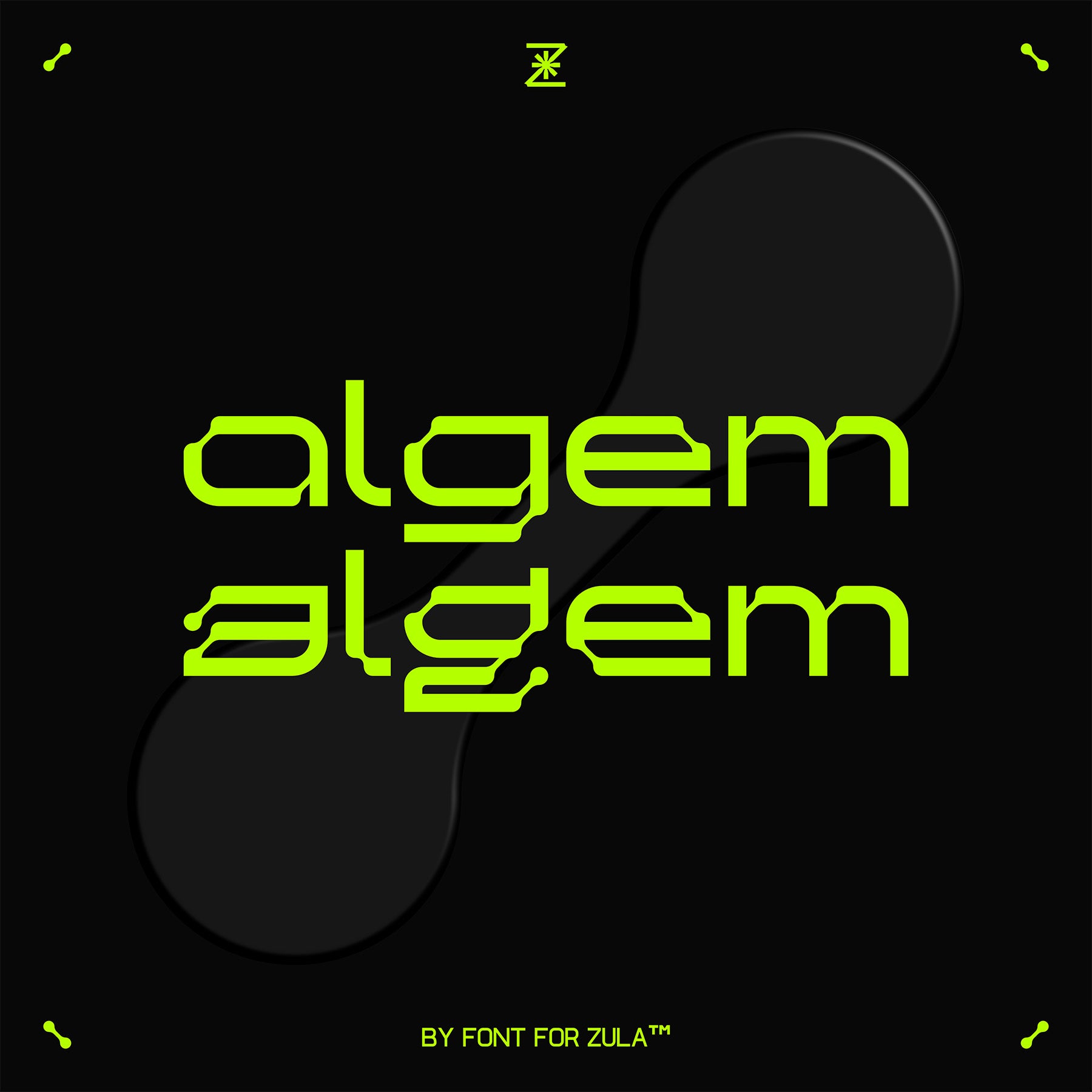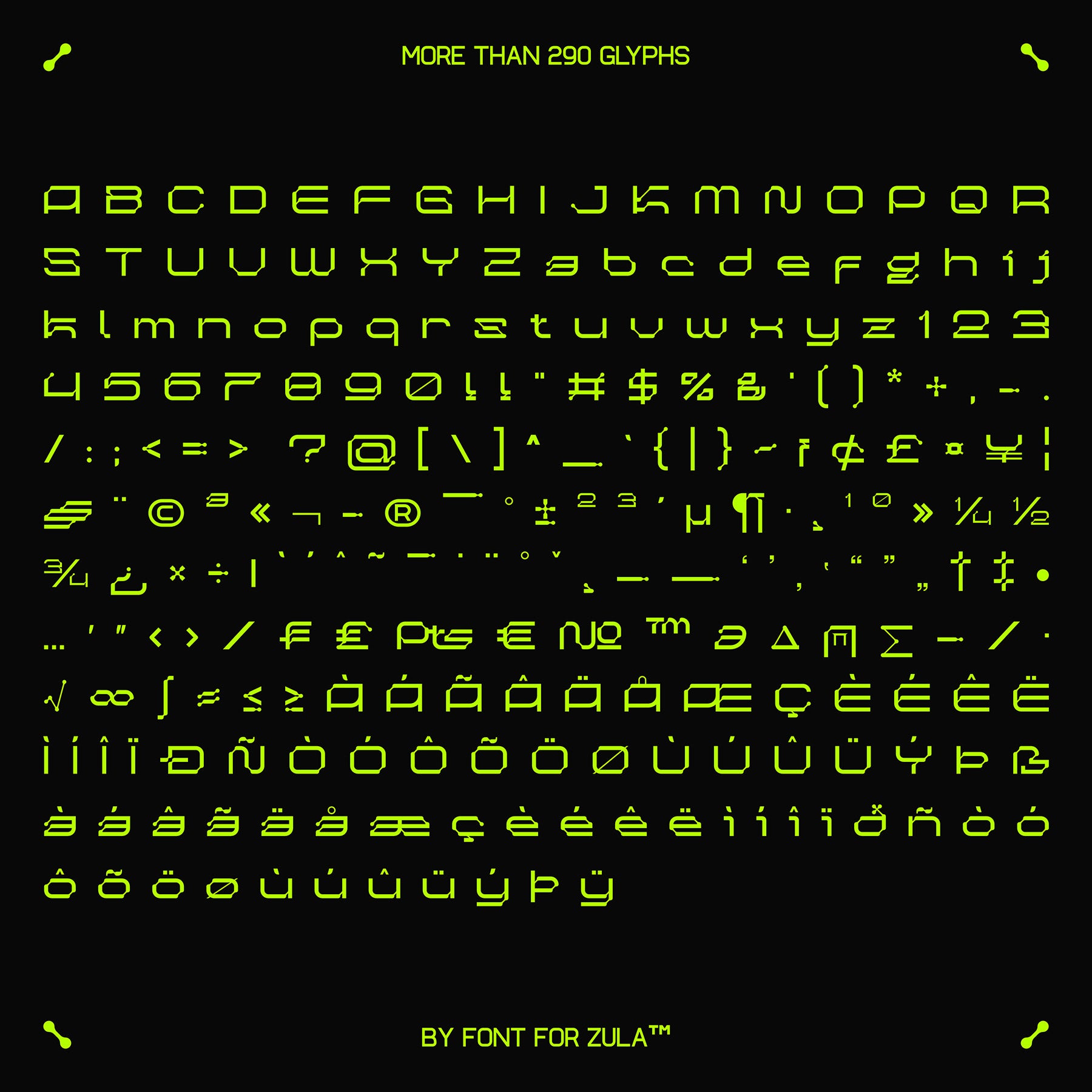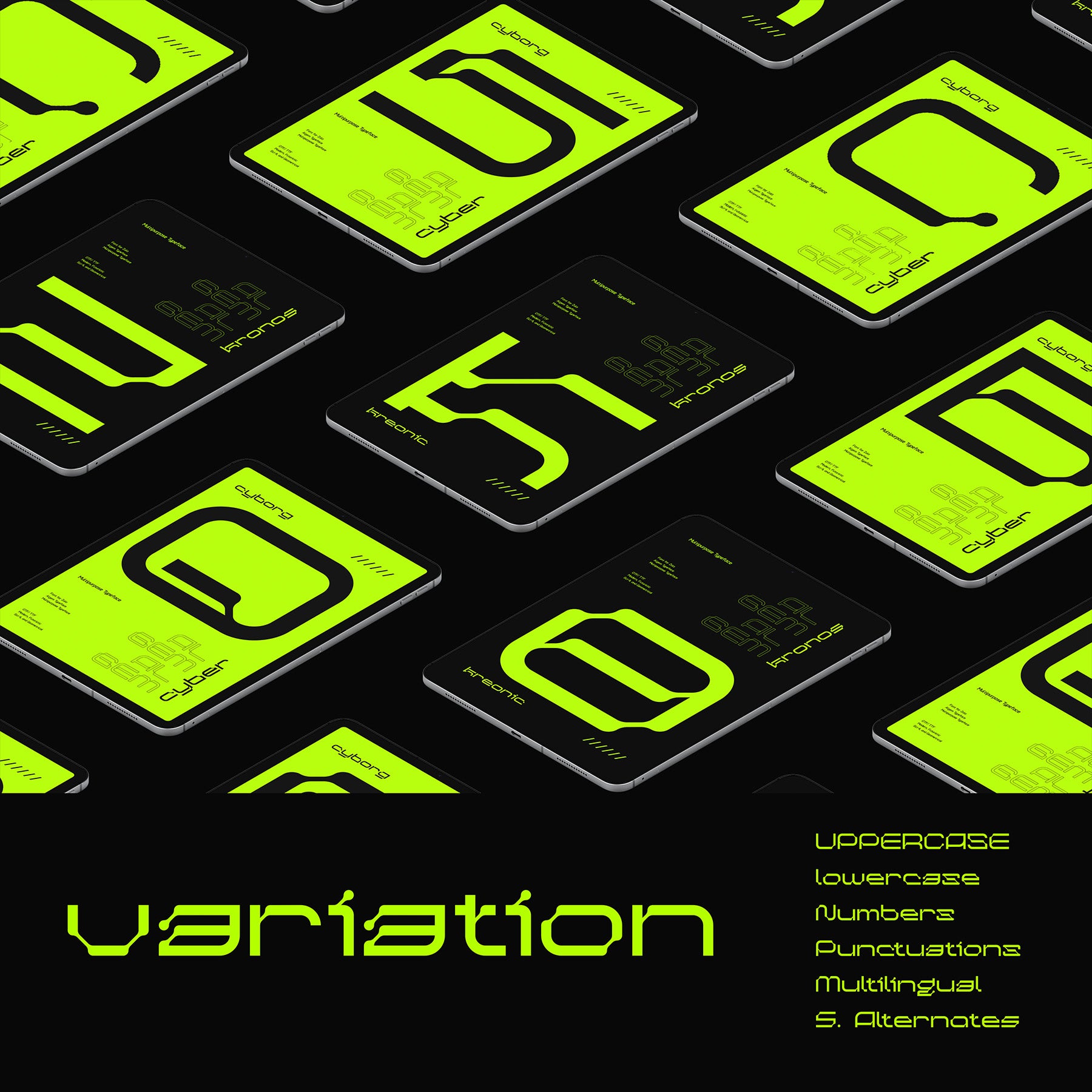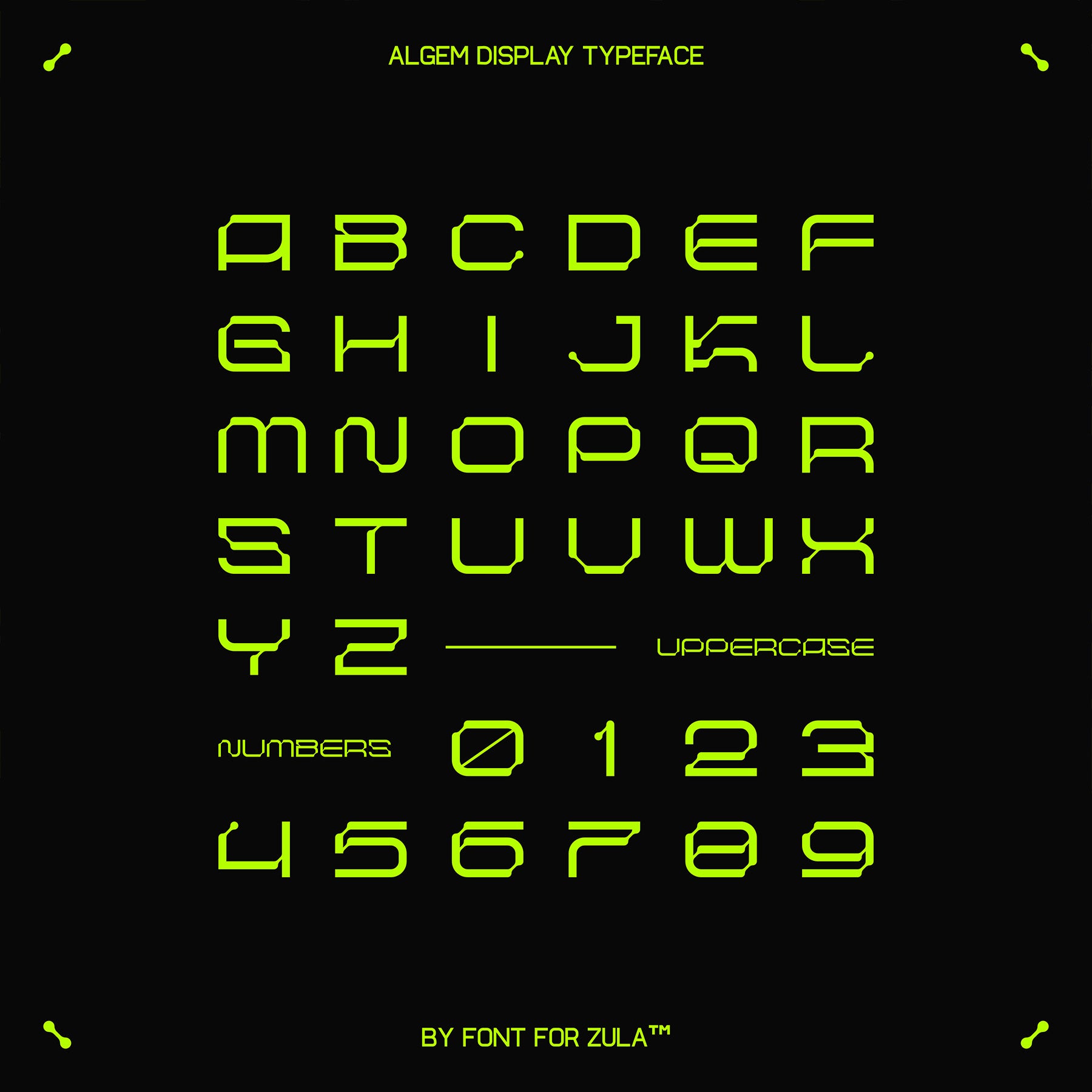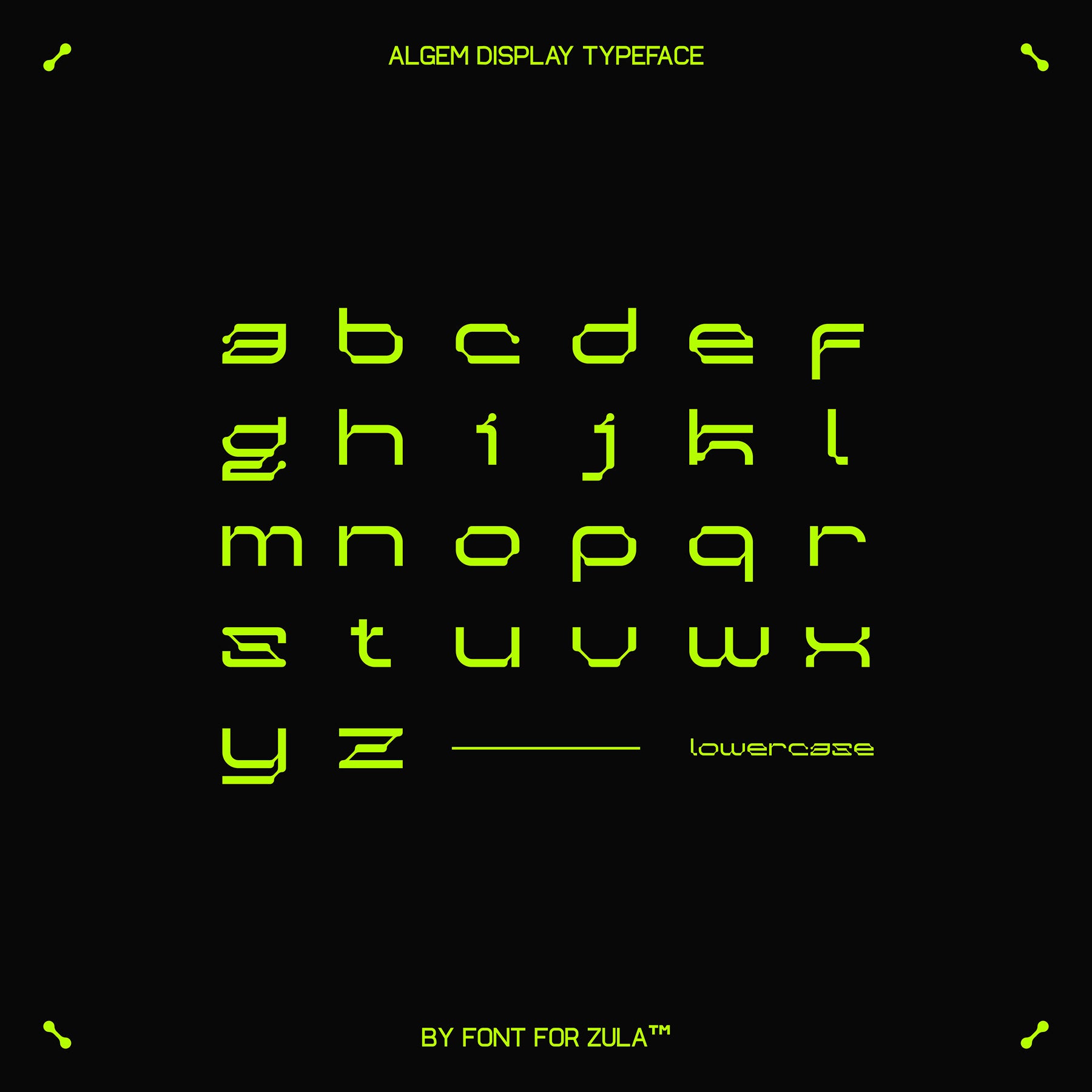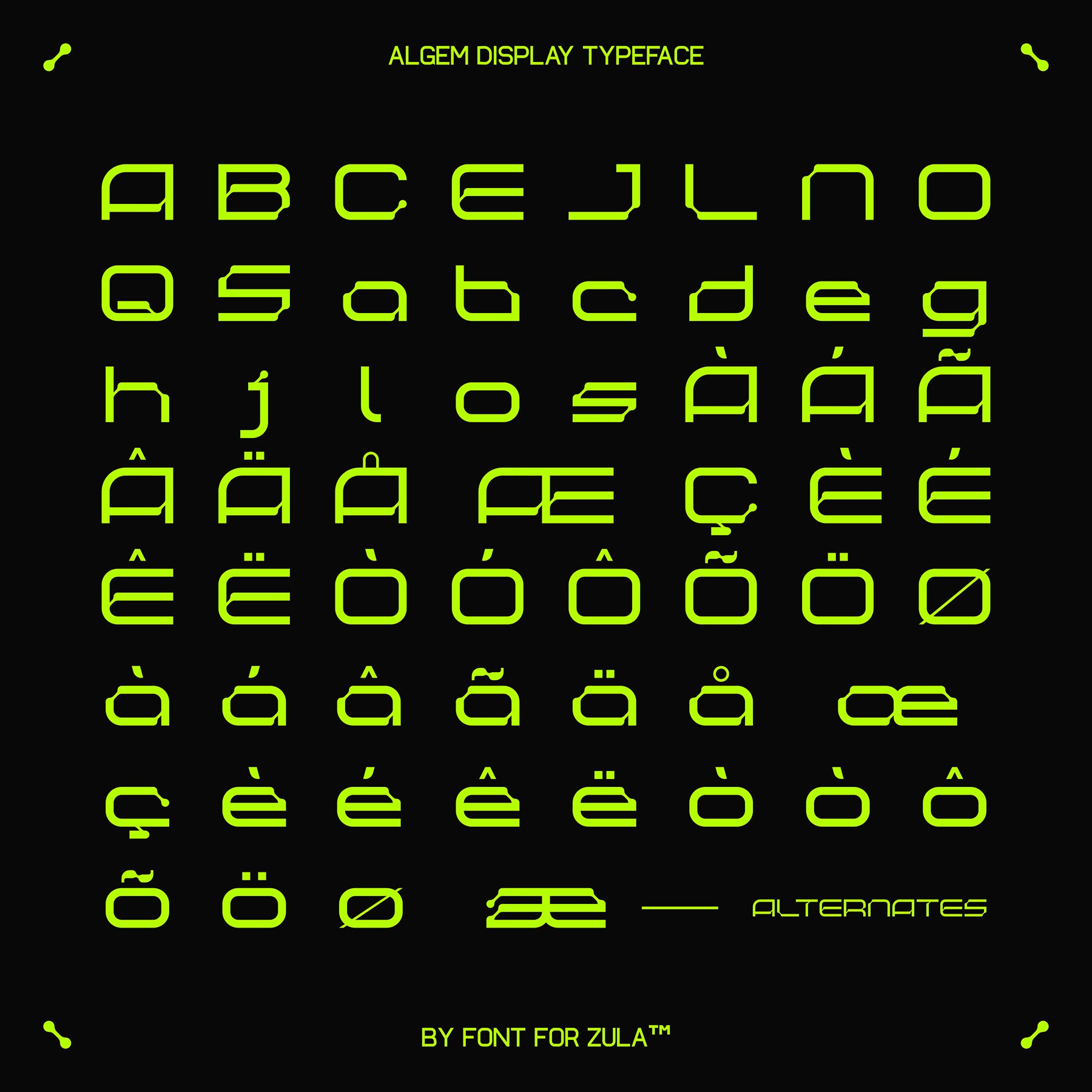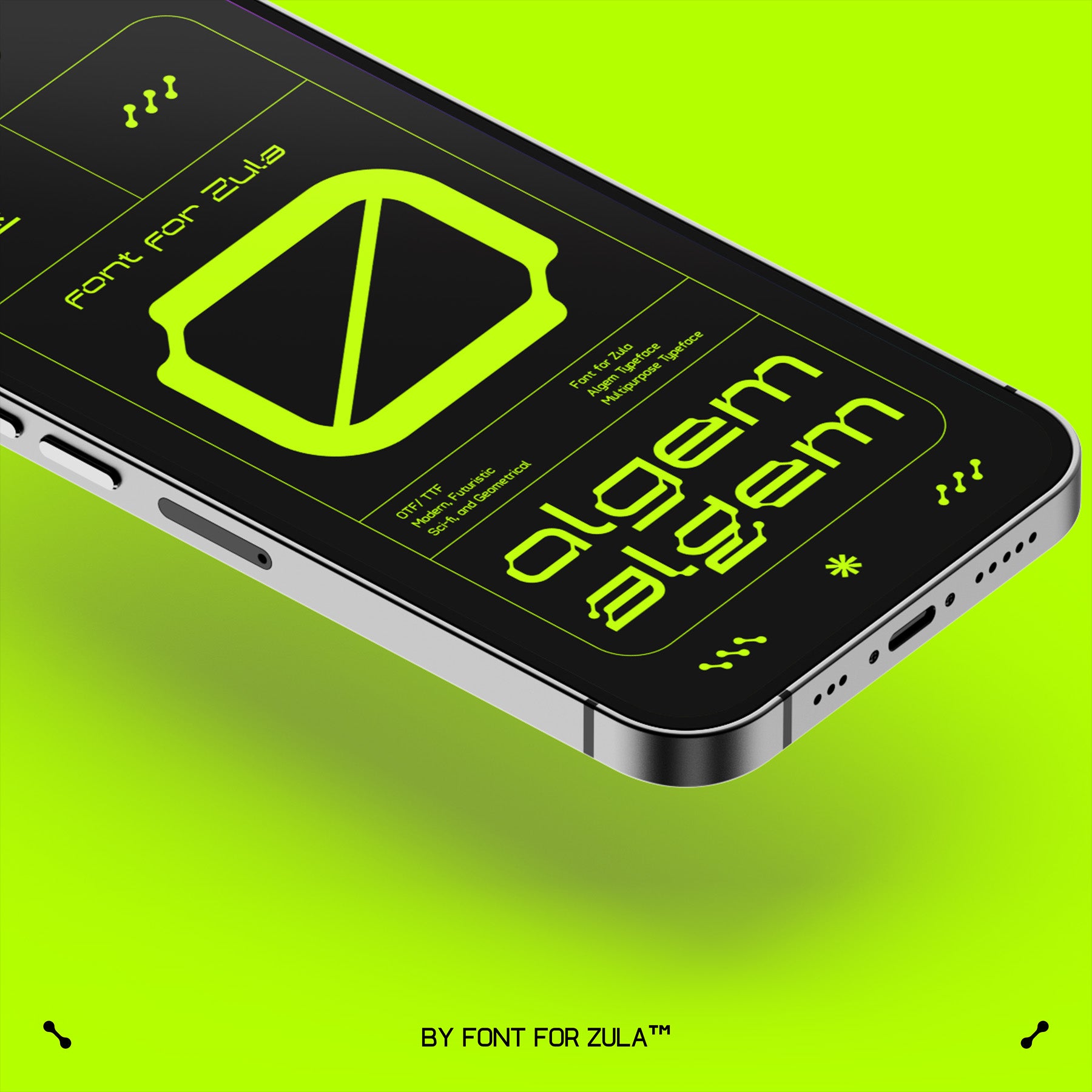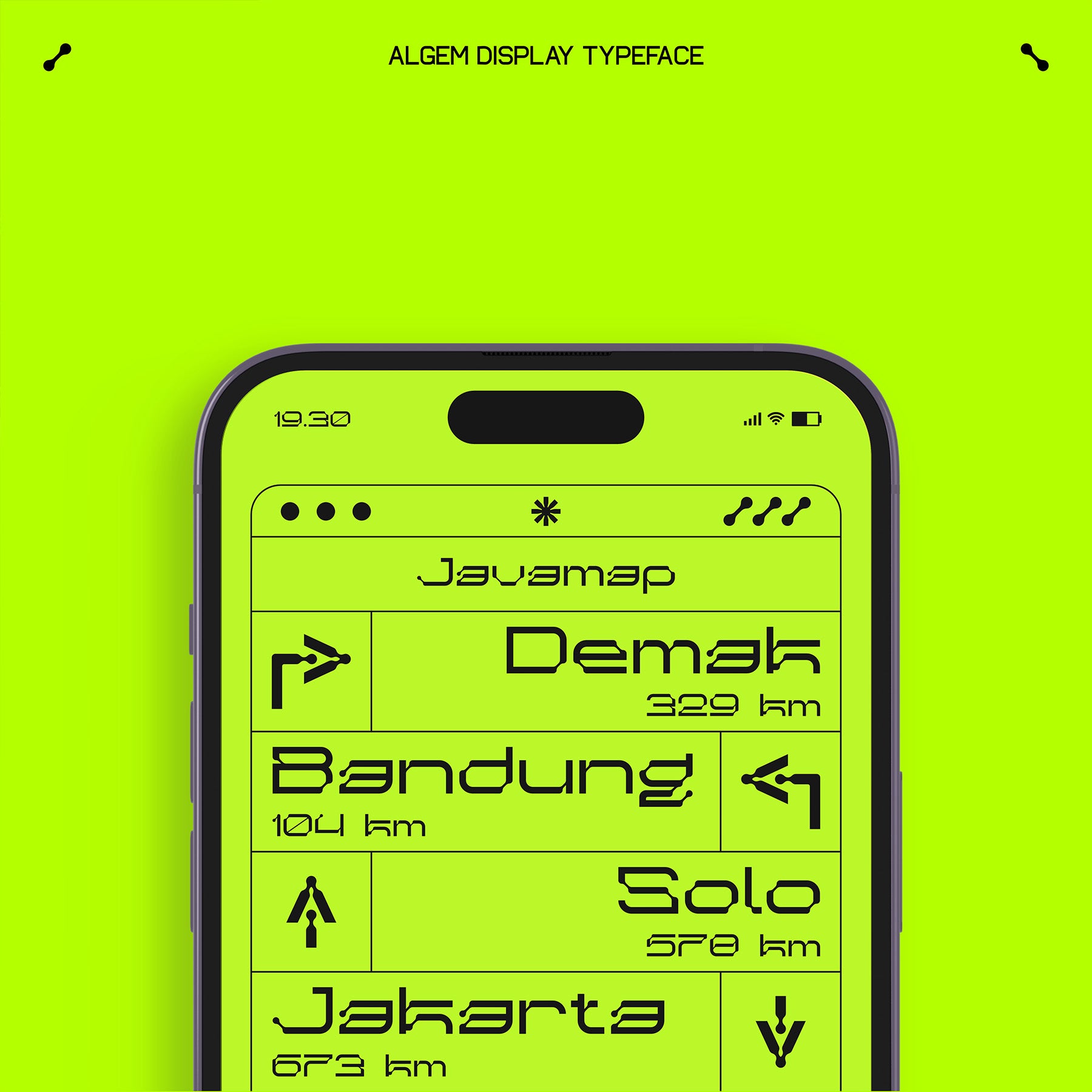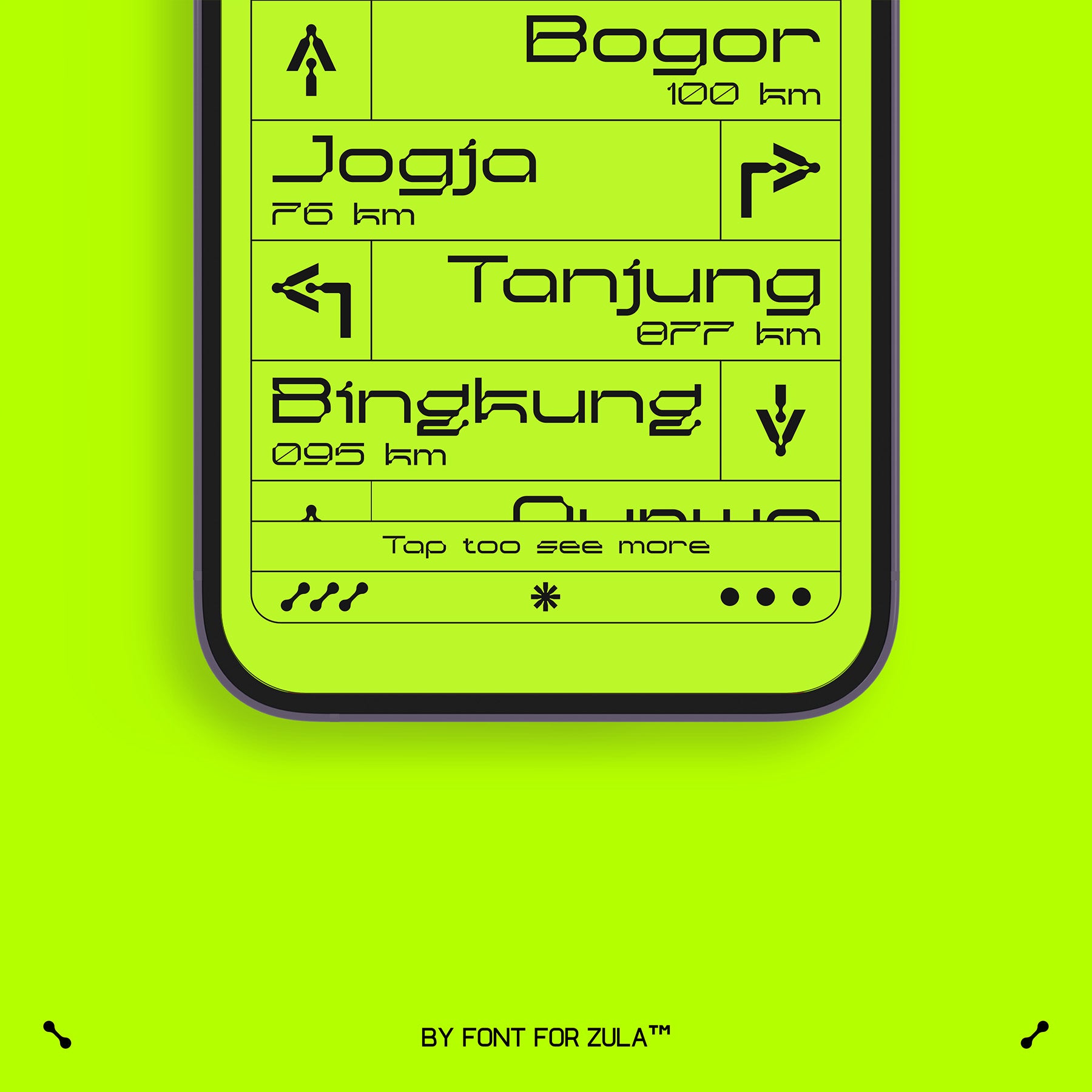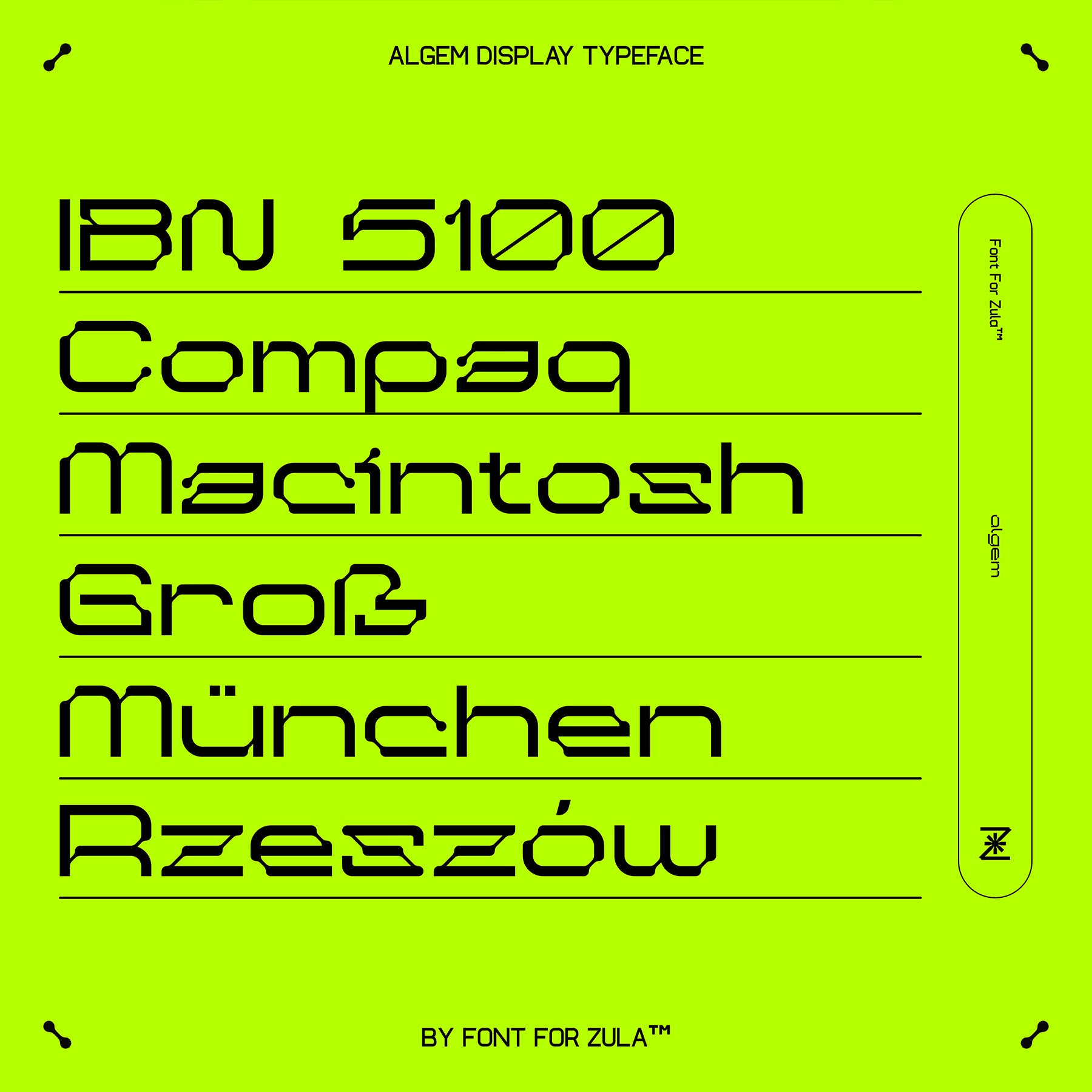
ALGEM Typeface
Introducing Algem, a versatile typeface that embodies a sense of futurism and modernity. It proves ideal for a myriad of applications, including brands, logos, posters, apparel, and beyond.
This font stands as a heartfelt homage to the author's father, who possessed a passion for apparel design, particularly with contemporary and futuristic fonts. Notably, the intriguing angles adorning certain letter corners serve as a symbolic representation of rebellious cancer cells, reflecting the author's father's courageous battle against cancer at the end of his life. Moreover, the font's very name, "Algem," lovingly echoes the author's father's nickname.